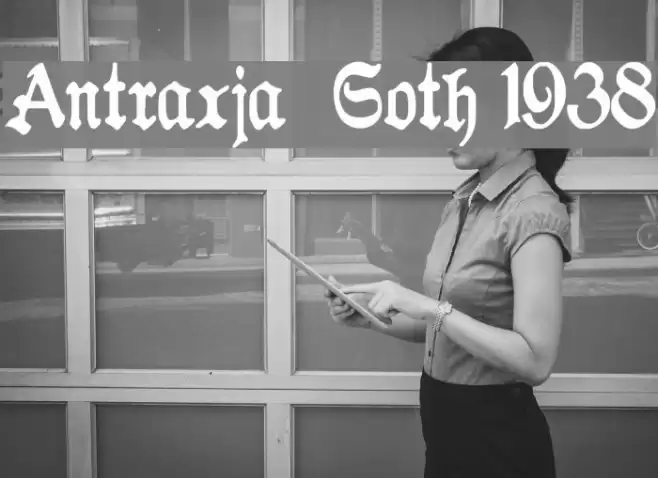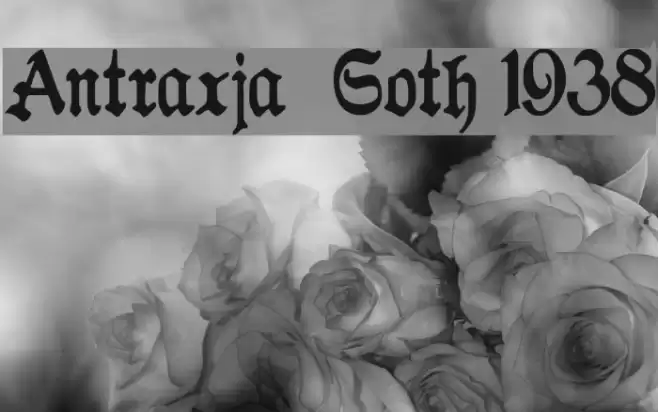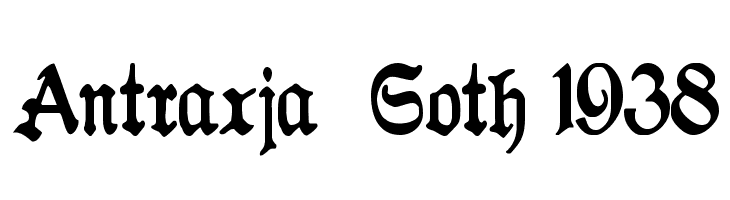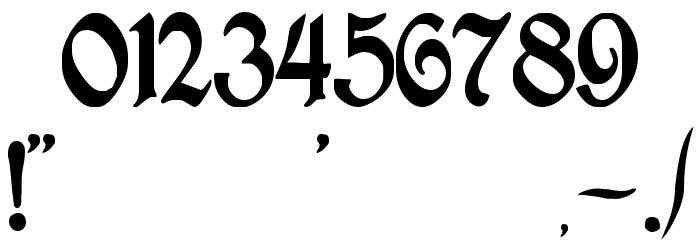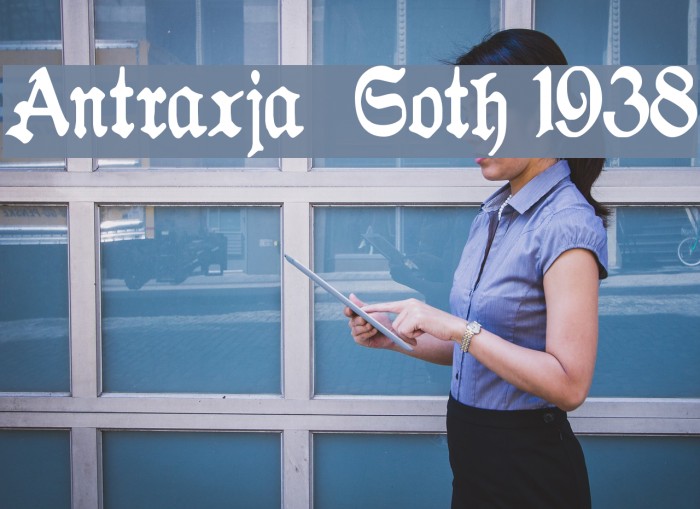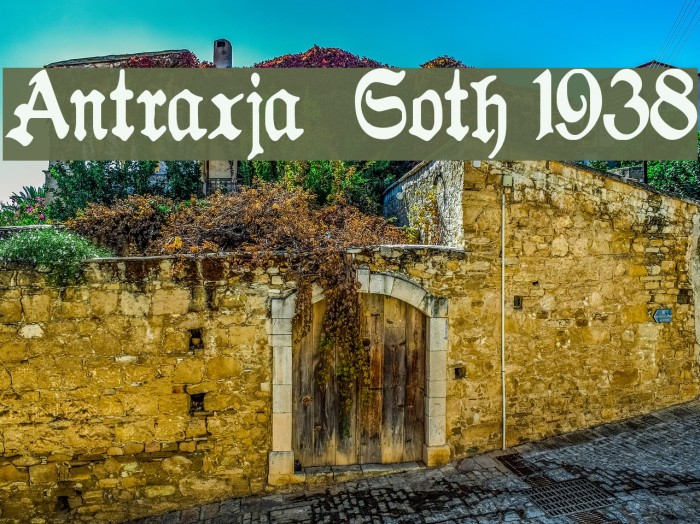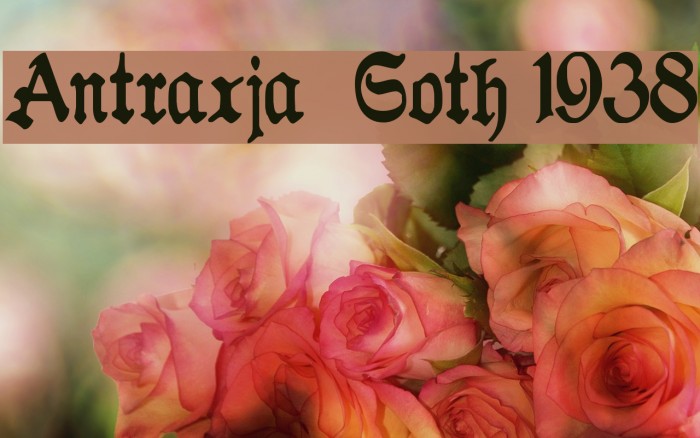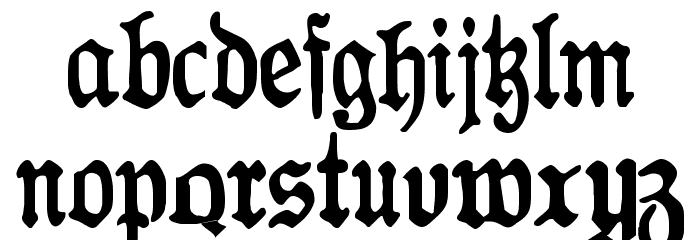
Antraxja Goth 1938 Font
Antraxja Goth 1938 Description
This font exhibits a classic Blackletter style, characterized by its intricate and ornate letterforms. The uppercase letters are bold and dramatic, with sharp angles and elaborate curves that give them a gothic appearance. The lowercase letters maintain the same level of detail, with a slightly more condensed form, providing a harmonious balance between the two cases. The numerals are equally stylized, featuring unique shapes that align with the overall medieval aesthetic. The special characters, including punctuation marks, are designed to complement the font's historical and decorative nature, making it suitable for projects that require a touch of antiquity and elegance.
A bold, intricate Blackletter font with a gothic, medieval aesthetic from Gothic fonts.
- Proposed Projects: Ideal for historical documents, gothic-themed designs, book covers, posters, and branding that requires a vintage or medieval touch.
- Overall Style: Vintage
- Use Case: Logos, Headlines, Decorative text